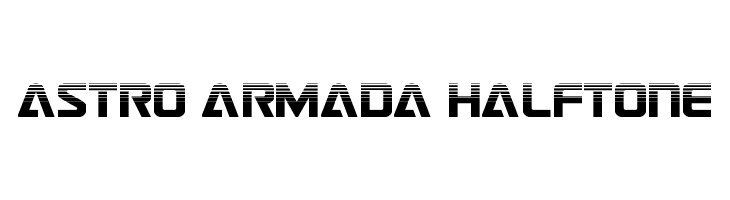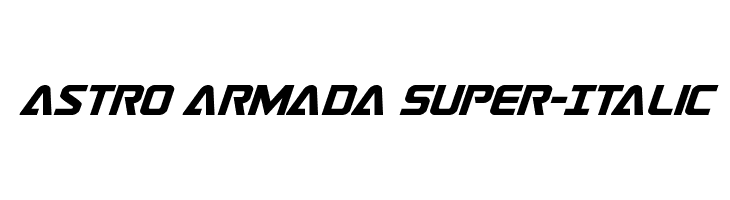
A futuristic, bold font with a halftone effect and geometric design.
A bold, italicized font with a futuristic halftone effect.
A bold, futuristic italic font with angular, geometric characters.
A bold, futuristic font with angular, slanted characters and a tech-inspired style.
A futuristic, geometric outline font with a bold and angular design.
A futuristic, italicized outline font with a geometric design.
A futuristic, outlined, semi-italic font with a geometric design.
A bold, semi-italic font with a futuristic and dynamic design.
A bold, futuristic font with angular, slanted characters and a geometric design.
A bold, italic, and futuristic font with a dynamic, angular design.